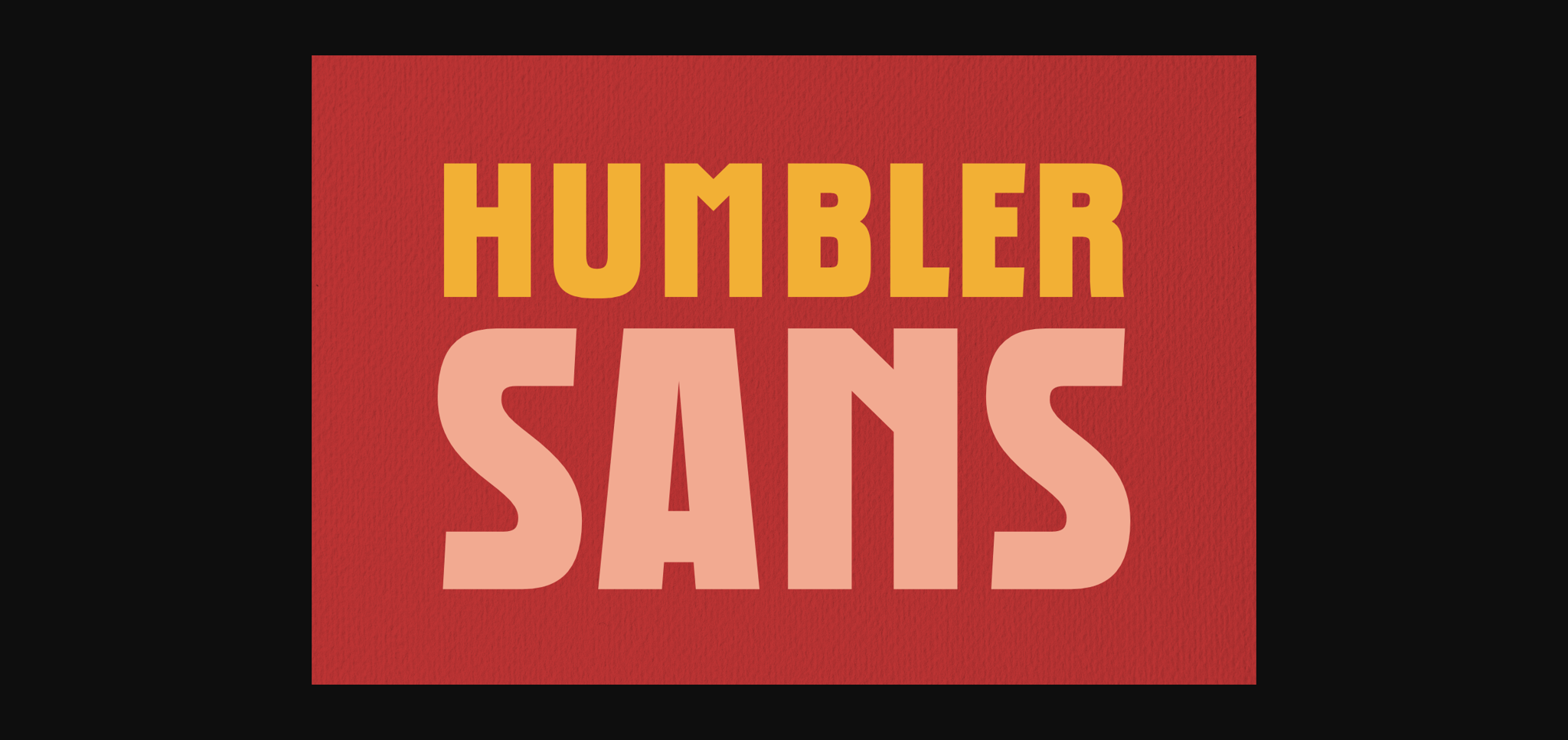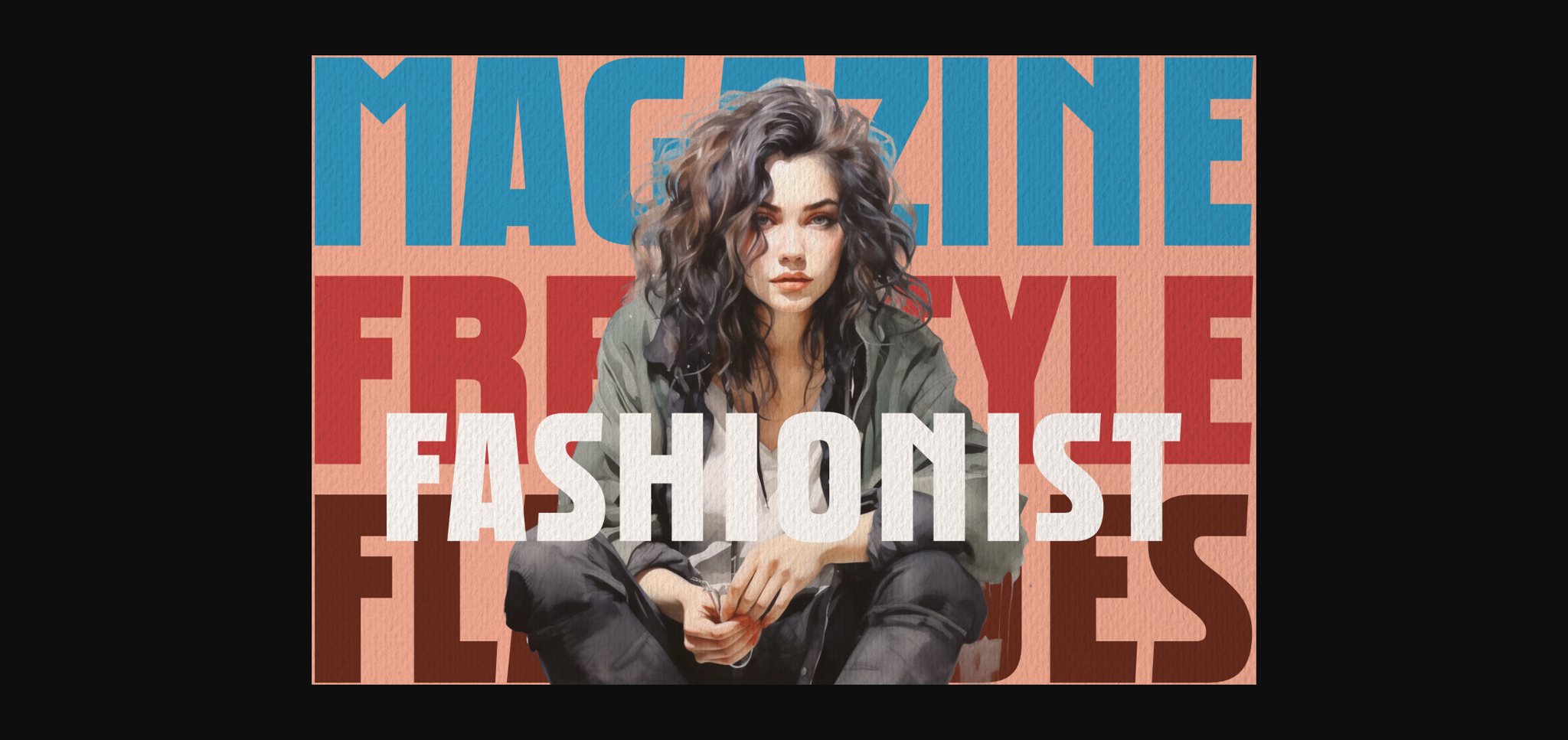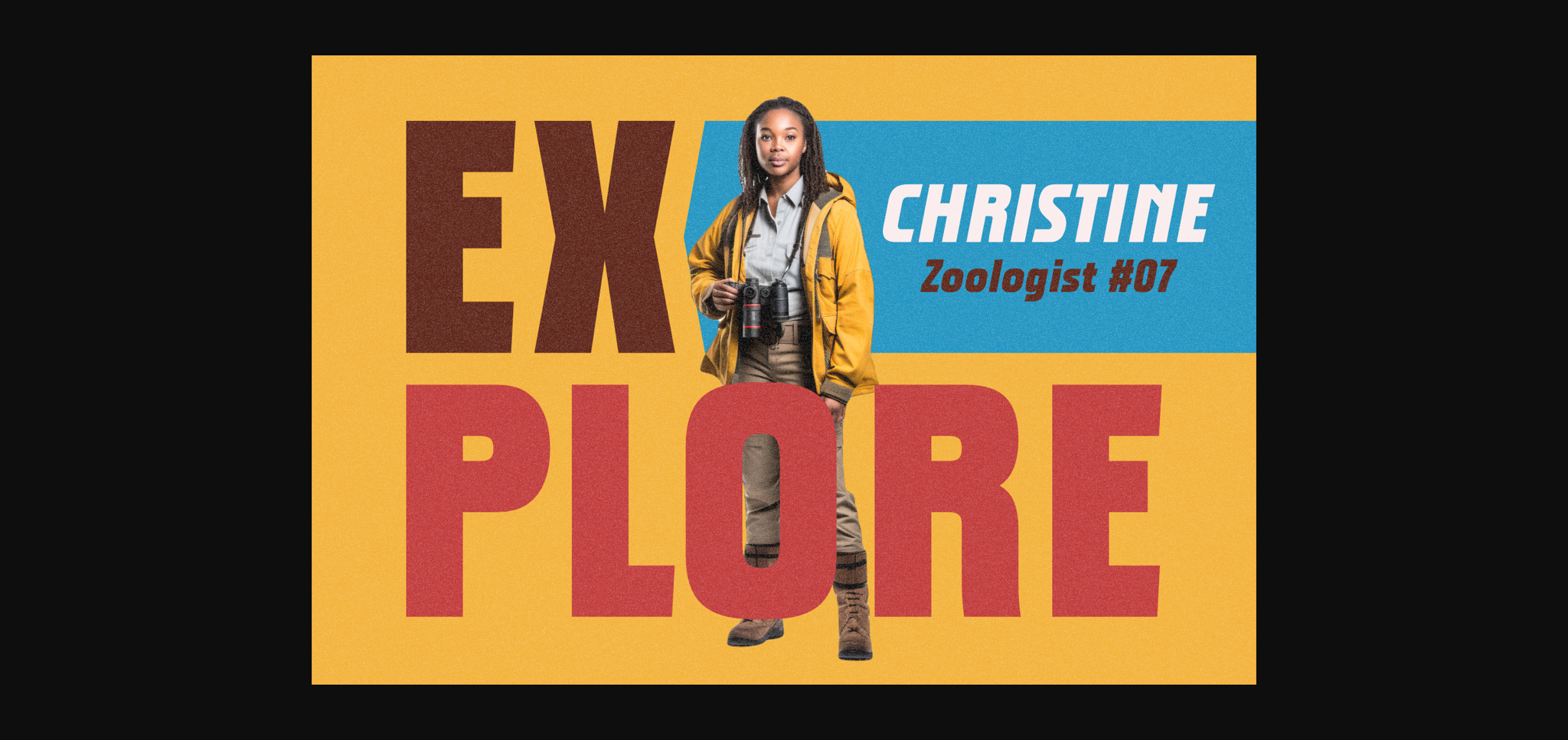
Humbler Sans Font
About Humbler Sans Font
Humbler Sans, a bold sans serif font, is your go-to choice for making a bold statement. With its distinctive and eye-catching design, Humbler Sans is perfect for grabbing attention in headlines, banners, book covers, and other creative displays. Its unique style adds a touch of personality to your text, ensuring that your message stands out. Elevate your visual impact with Humbler Sans and let your words take center stage in a dynamic and expressive way.